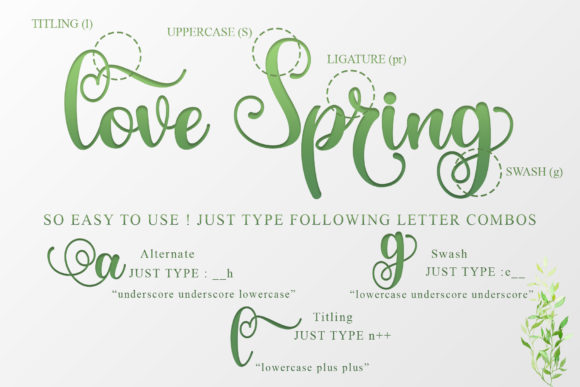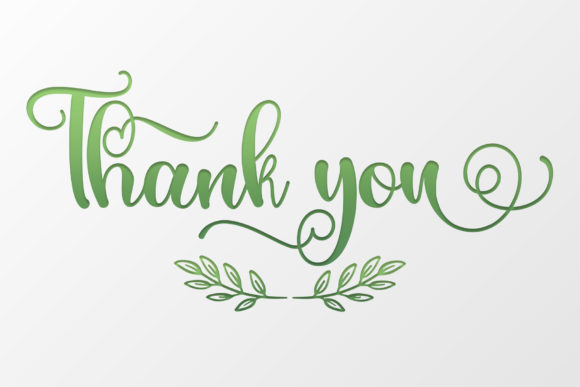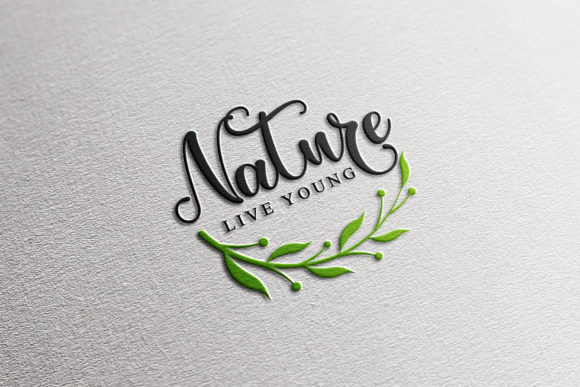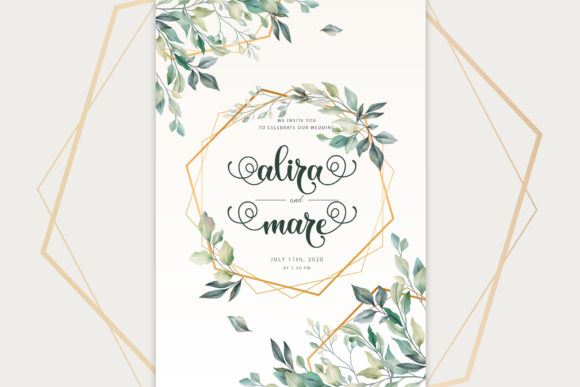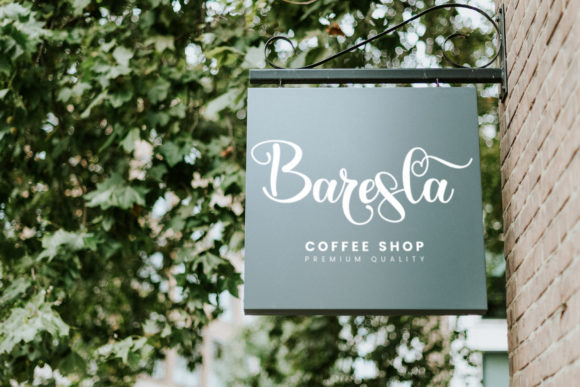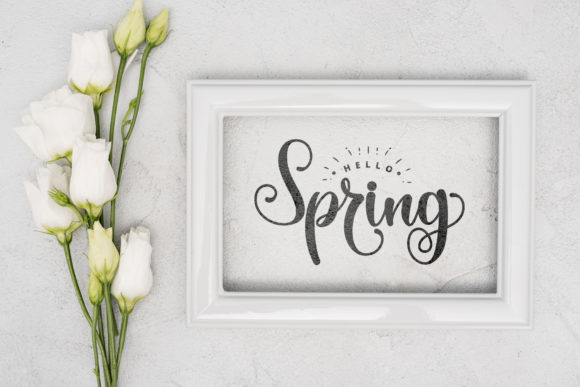
The Spring Font
About The Spring Font
The Spring is a romantic and sweet handwritten font. It looks astonishing on love letters, greeting cards, logos, business cards and every other design which needs a personalized touch.